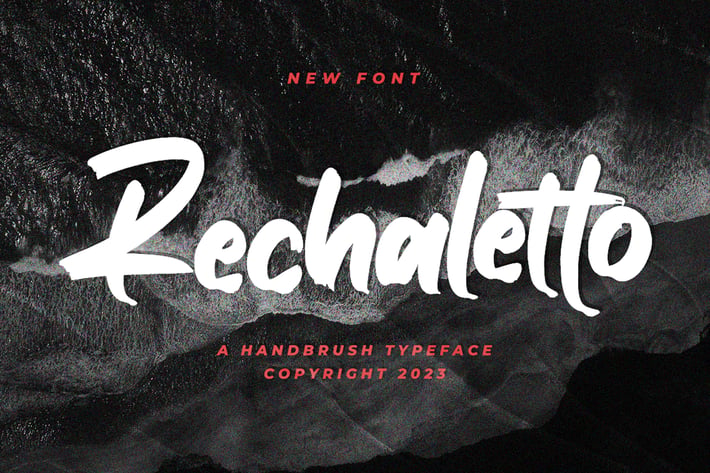
Rechaletto - Brush Font
Rechaletto is a brushed script font featuring charming, playful characters that seem to dance along the baseline. Add this font to your most creative ideas, and notice how it makes them stand out!